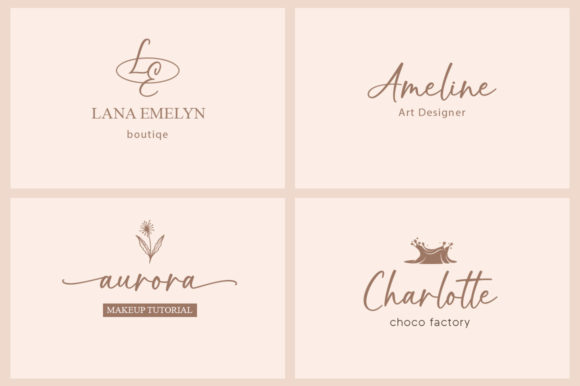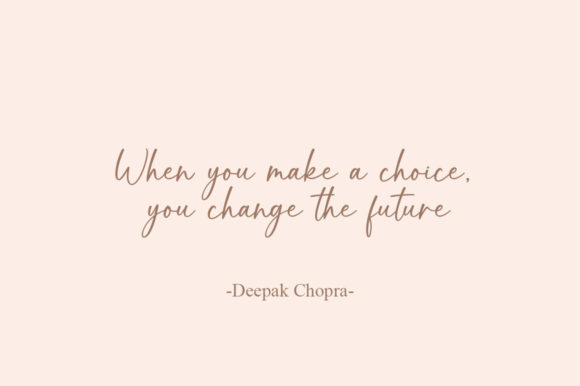
Sweetie Font
db-ku.com - Script & Handwritten -- Sweetie is a stylish and incredibly elegant script font. It looks stunning on wedding invitations, thank you cards, quotes, greeting cards, logos, business cards and more. This font is PUA encoded which means you can access all of the glyphs and swashes with ease!